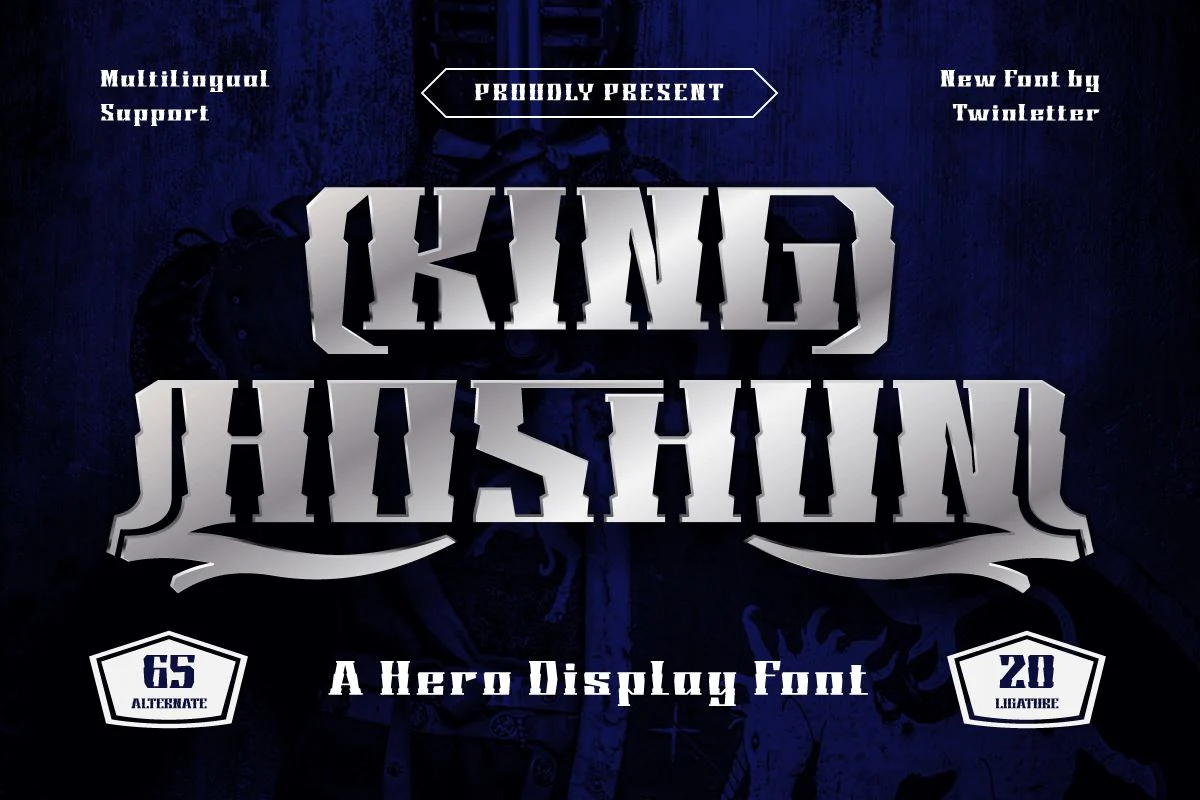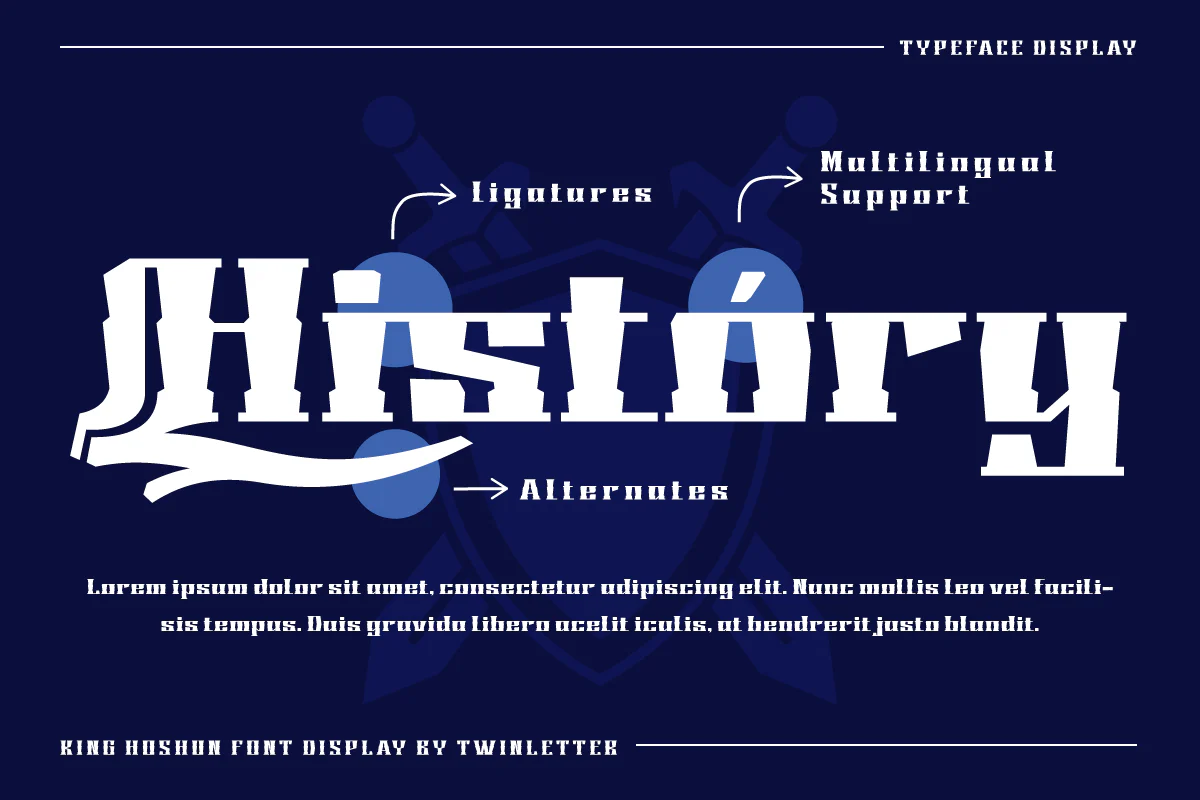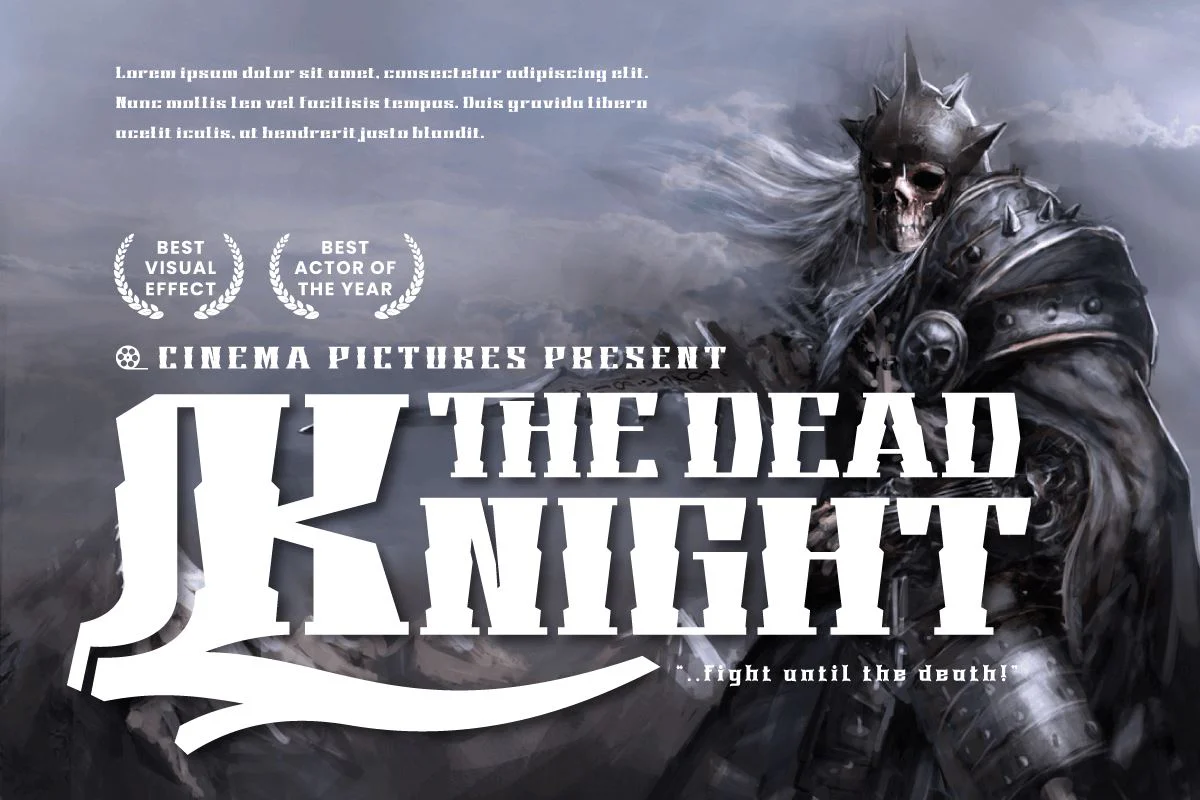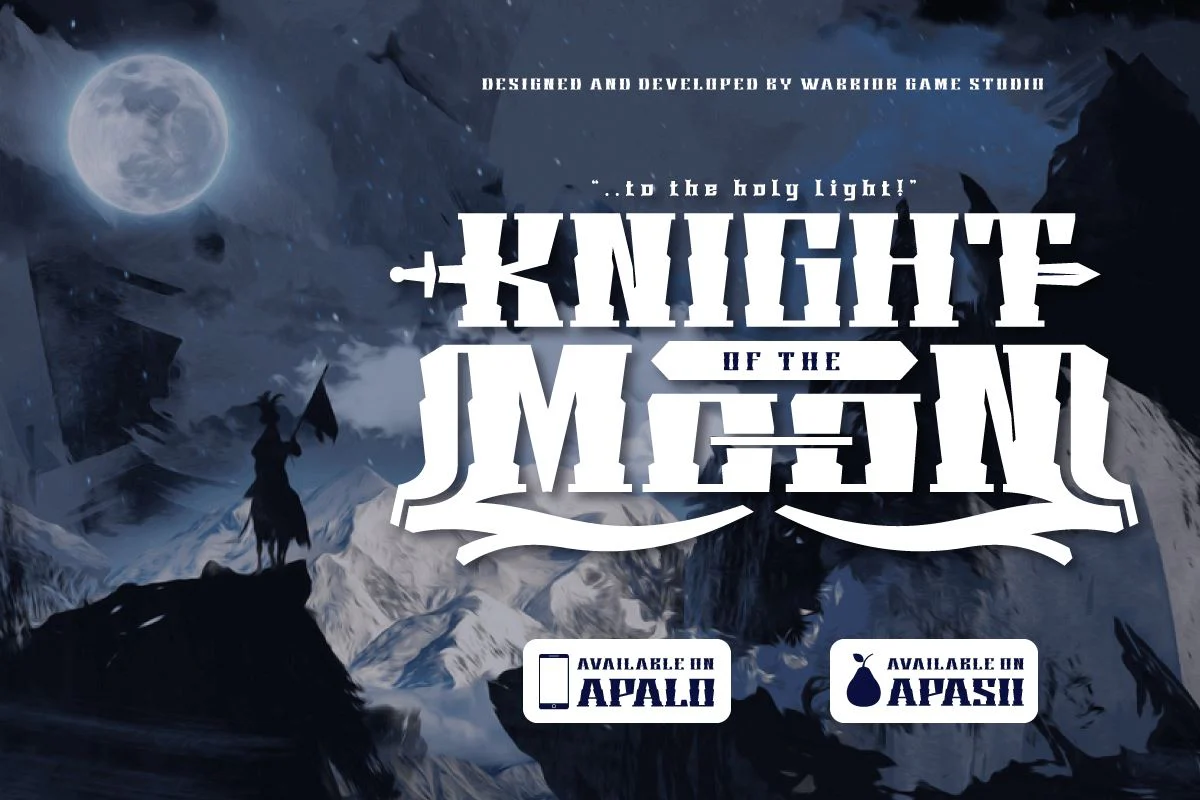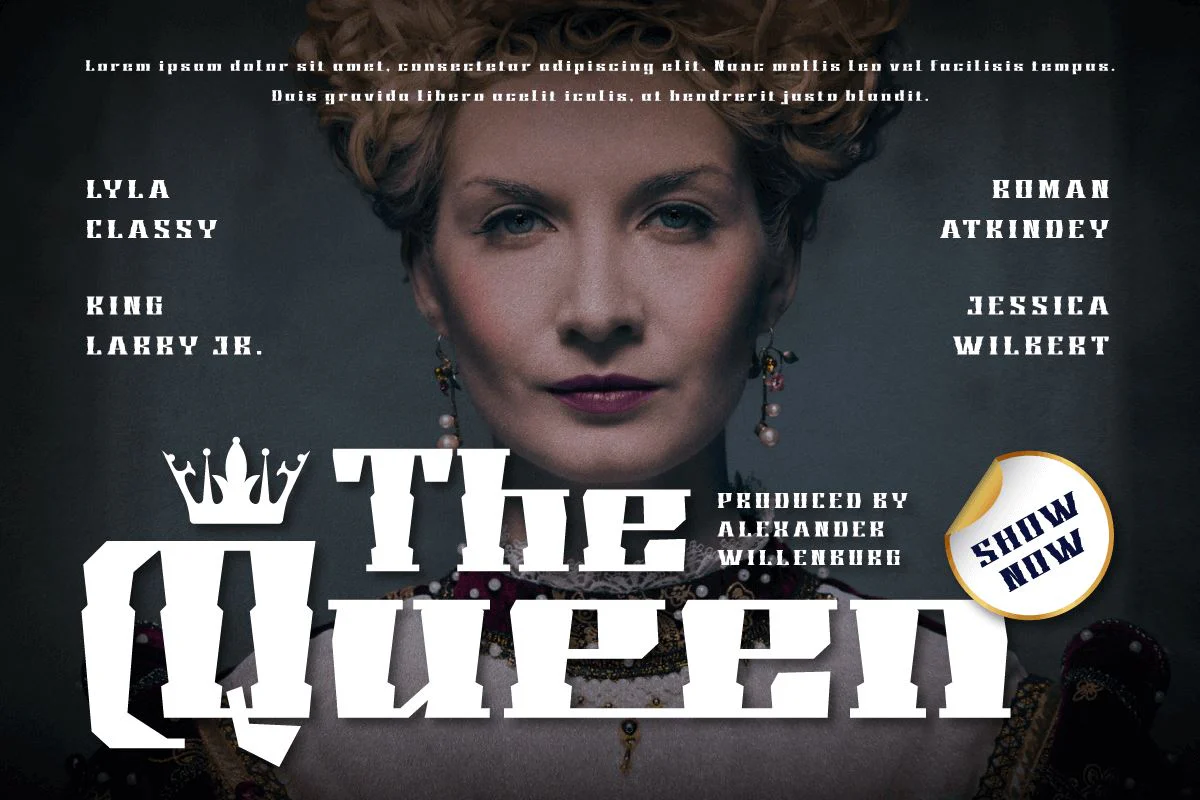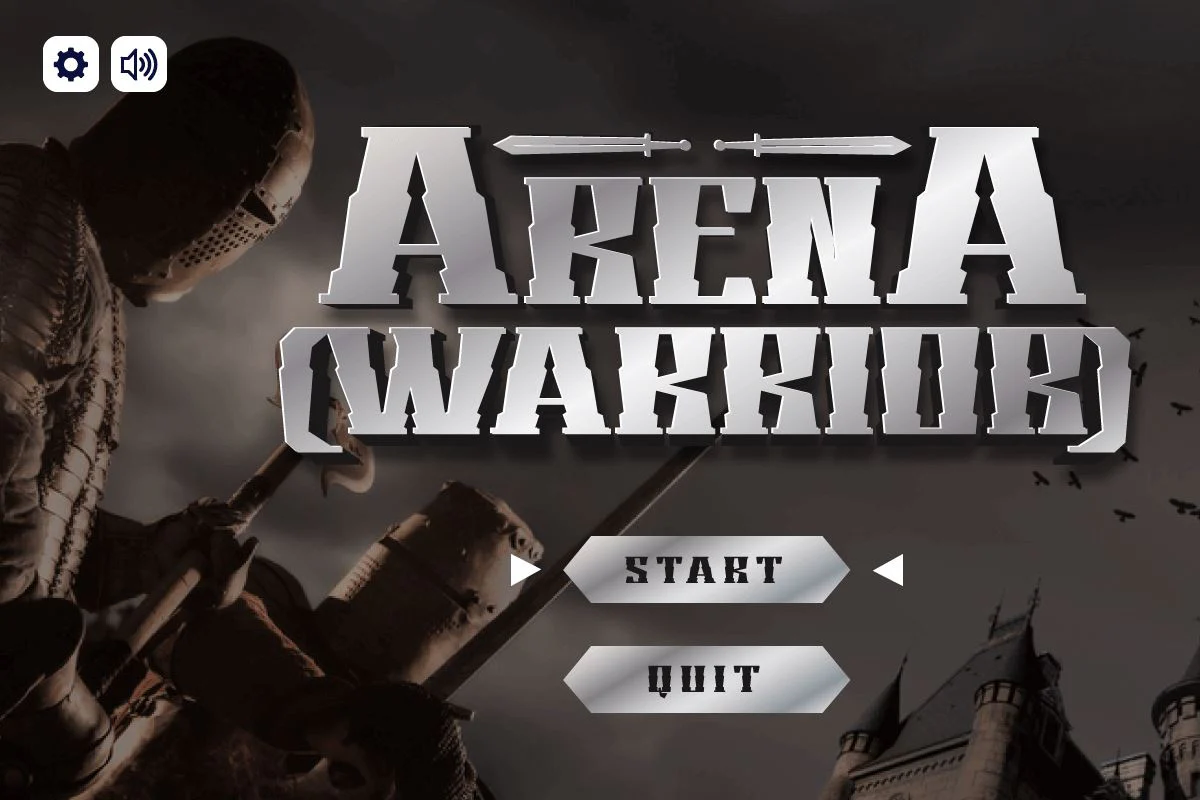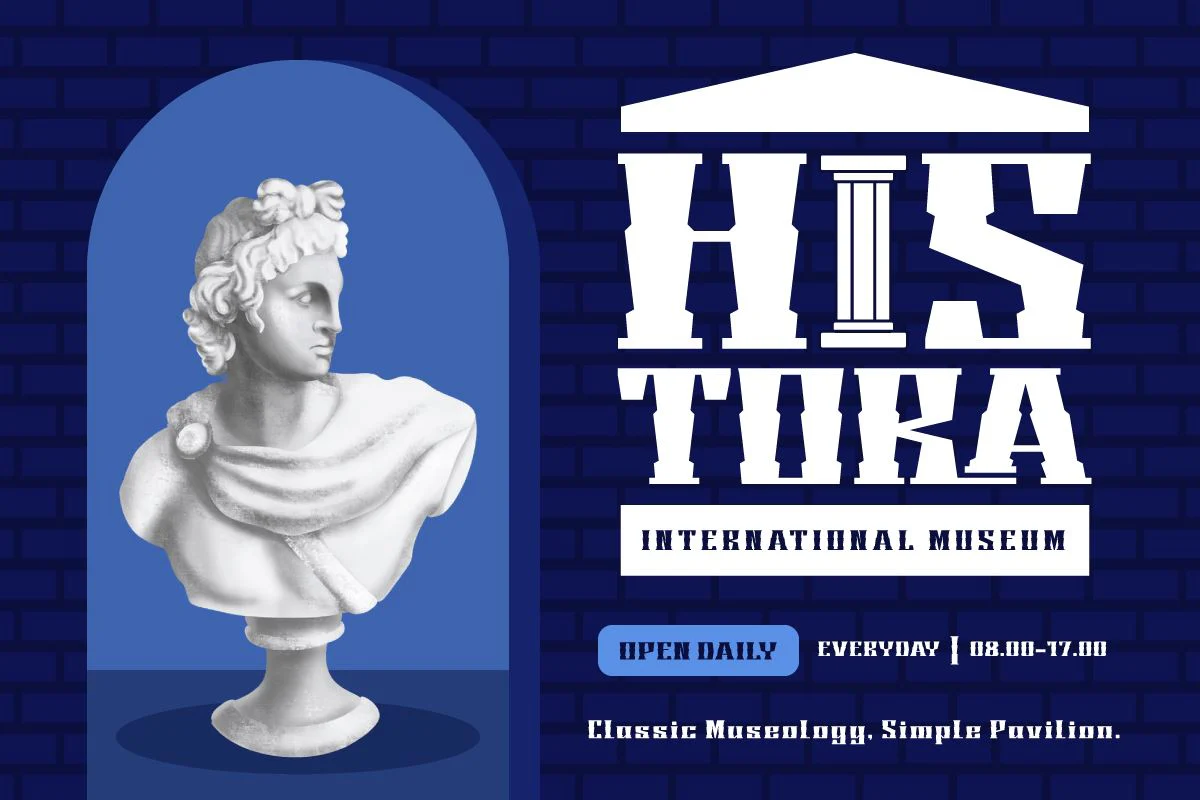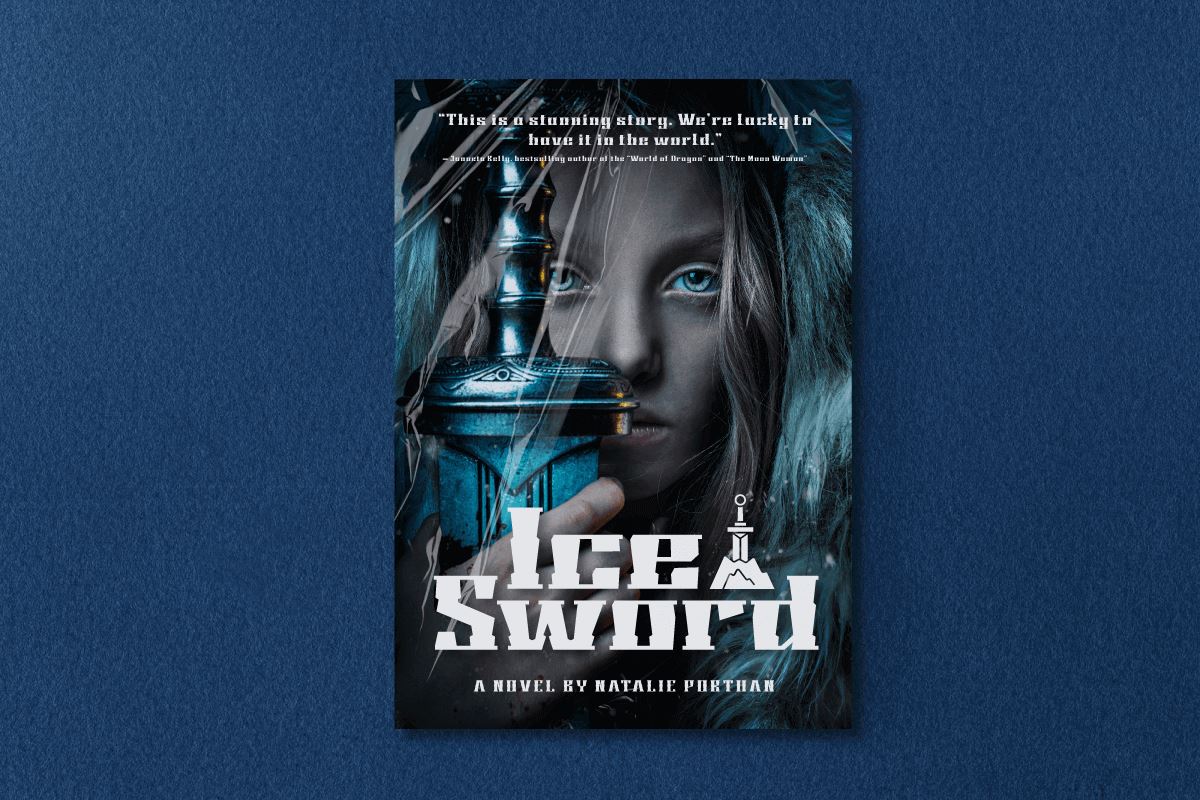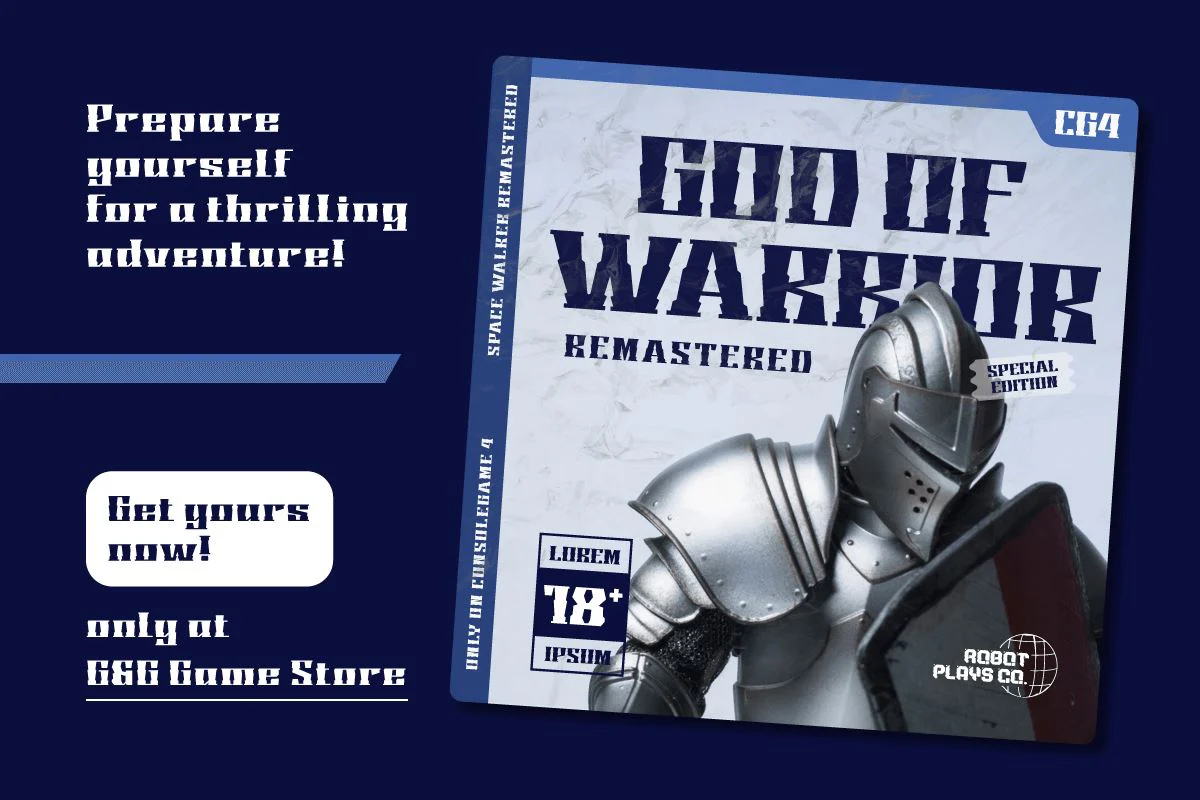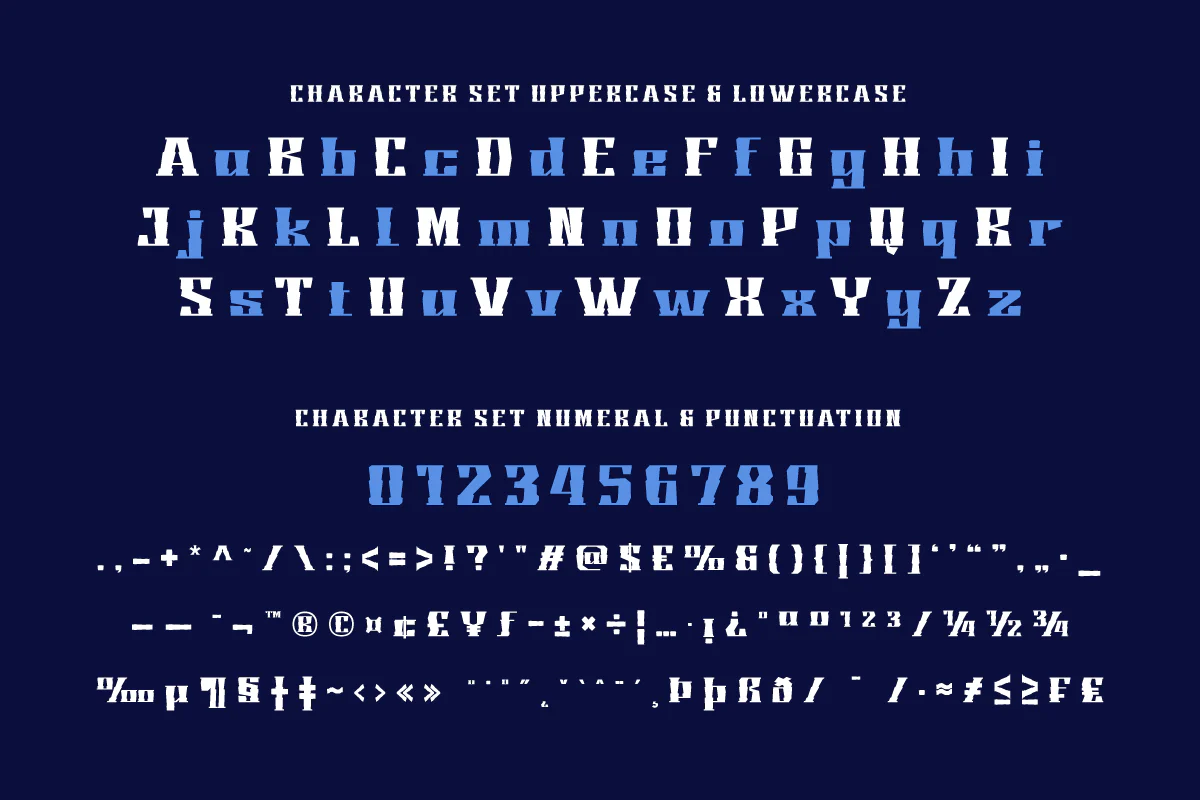
KING HOSHUN | Display Hero Font
Welcome King Hoshun, a display font with a superhero style ready to take your projects to a higher level. If you need a strong, bold, and action-packed theme like those in movies, games, or bold designs, King Hoshun is the right choice. With King Hoshun in attendance, your designs will be in the spotlight. Each letter is filled with strength and heroism that will make an unforgettable impact on the audience. The impressive and bold look of this font will make your message feel even more powerful and compelling.
Not only does it look impressive, but King Hoshun also offers special features that enrich your creativity. With the available ligatures and alternative characters, you can explore unique and interesting typography combinations. Plus, this font supports multiple languages, so you can present a strong and inspiring message to a global audience.
Join the power of King Hoshun and let your projects light up the world. With its bold superhero style and superior features, this font will give your designs an unforgettable impression. Don’t miss the chance to own King Hoshun and create amazing works that amaze and inspire.